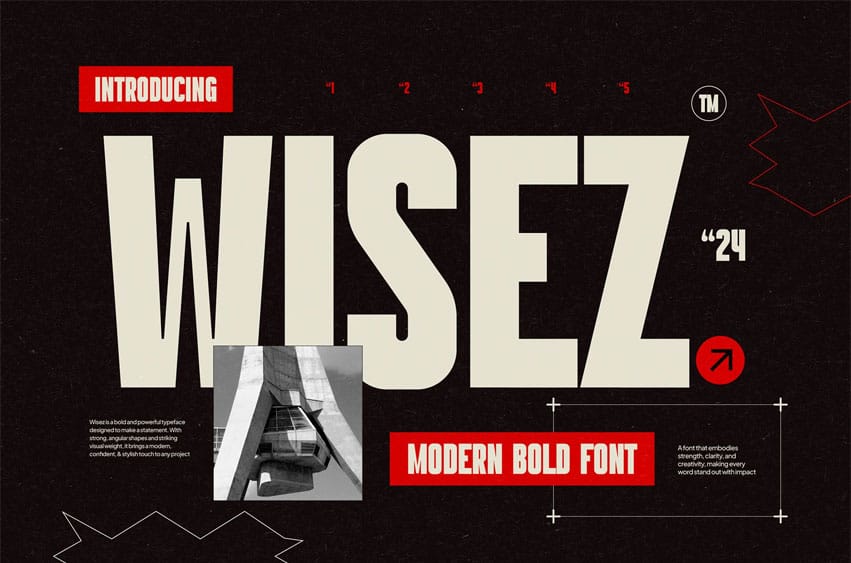
Wisez Font is a bold geometric display typeface designed for striking visual impact and modern storytelling. With sharp terminals, strong vertical weight, and high contrast, it communicates confidence and power in every word. Its expressive vibe blends the energy of retro poster design with the clarity of modern digital branding, making it ideal for creative industries that thrive on visibility and bold expression.
This typeface is built for branding, editorial layouts, posters, social media graphics, packaging, and signage. Its strong presence naturally grabs attention, whether on a street billboard, a lifestyle magazine cover, or an app UI splash screen. WISEZ helps designers achieve bold, forward-looking visuals that resonate with audiences seeking innovation, strength, and modern style.
Key Features :
Geometric Letterforms – Balanced proportions and bold contrast
Versatile Style – Works across print, digital, and environmental design
Attention-Grabbing Headlines – Perfect for large-scale display use
Expressive & Confident – Adds strength and authority to your brand voice